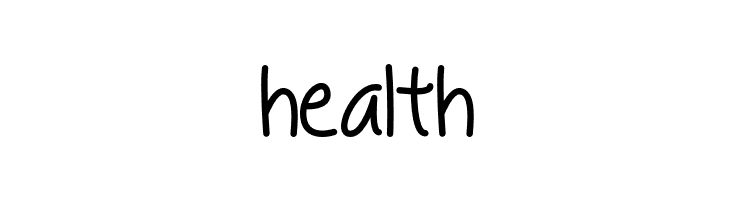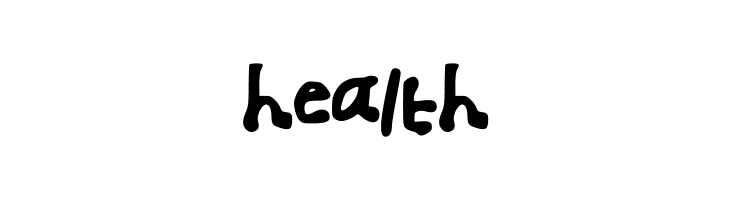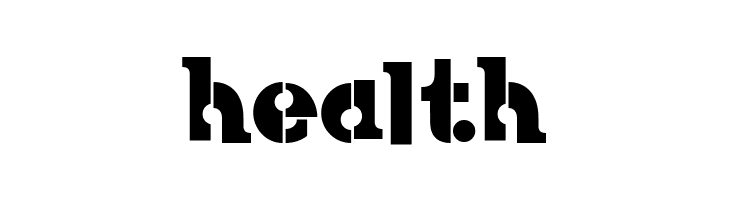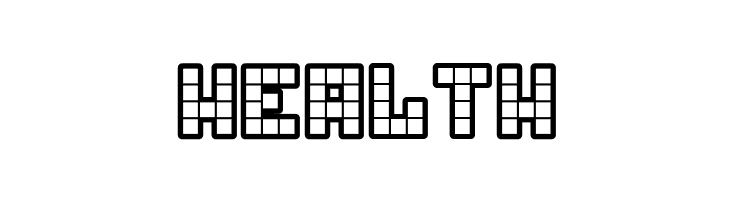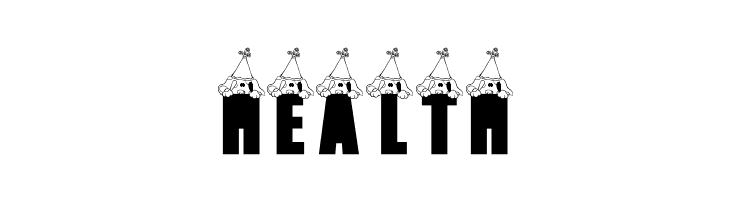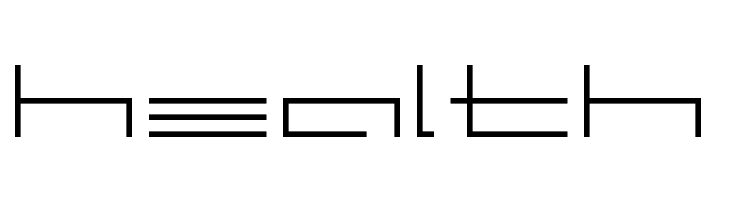
( DrJohnDee - www.fontspace.com/profile/drjohndee )
A bold, geometric stencil-style font with unique cutouts.
( Font-a-licious - www.fontalicious.com/ )
A grid-based, pixelated font with a modern, geometric style.
( London's Letters - www.londonsletters.com/ )
A playful, bold font with cartoon character illustrations peeking over each letter.
( London's Letters - www.londonsletters.com/ )
A bold, geometric font with sharp edges and uniform strokes, ideal for impactful design.
( Lyric Type - www.deviantart.com/westralinc )
A geometric, tech-inspired font with linear and angular characters.
( Misti's Fonts - mistifonts.com/ )
A bold, retro-inspired font with geometric shapes and strong visual impact.
A playful, hand-drawn font with bold, rounded characters and a whimsical style.